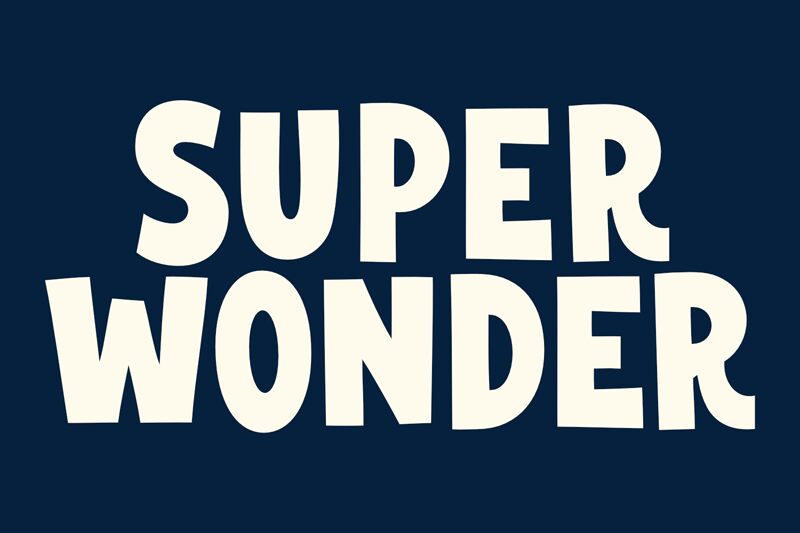
Super Wonder Regular
Super Wonder font by fsuarez913 is a free comic display typeface with big, bouncy letters that feel hand-drawn and full of energy. The chunky strokes, playful curves, and slightly uneven rhythm give it the vibe of an old-school comic strip headline, loud enough to grab attention but still easy to read. It feels soft and friendly on the page, like bold marker ink laid down in confident sweeps.
Using Super Wonder, you can bring a fun, cartoonish punch to kids’ book covers, comic panels, speech bubbles, party invitations, toy packaging, and game titles. This free font shines when it’s large and bold, so don’t be shy about scaling it up for logos or thumbnails. For supporting text, pair it with a clean rounded sans serif to keep the overall design readable while Super Wonder does the storytelling.